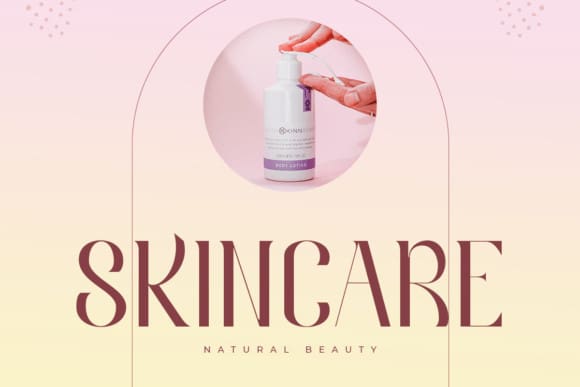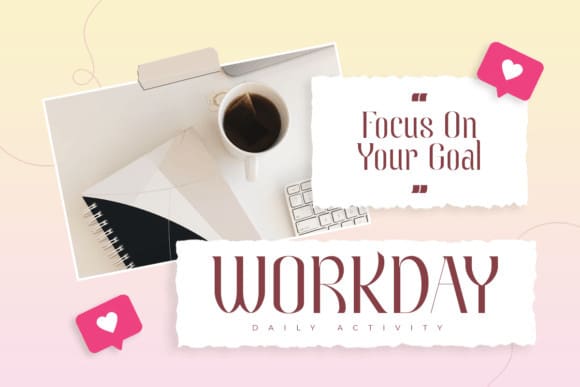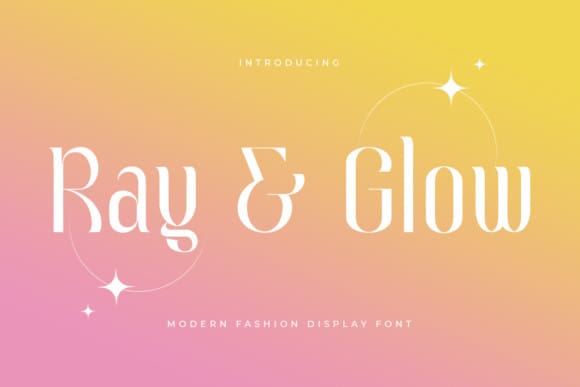
Ray And Glow Font
Ray And Glow font, specially crafted for beauty branding needs. With extra ligatures in unique shapes, this fashion-forward font adds value to your brand. Whether you’re a designer or a product owner seeking modern and beautiful designs, Ray & Glow has got you covered. Explore unlimited variations with its specially prepared ligature characters, making your creative journey effortless and stunning.